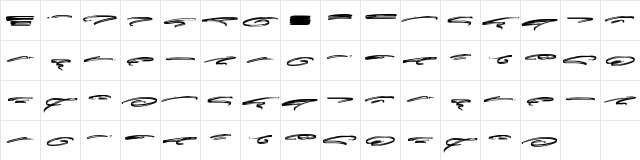
Greatest Richmond Swash Regular
| Designer | Muh. Aswar by Azetype Studio |
Design Context for Greatest Richmond Swash Typeface
Greatest Richmond Swash brings a calligraphic fluidity to the page — its connecting strokes and expressive curves give it an unmistakably human quality.
Font Pairing: Combine Greatest Richmond Swash with a simple geometric sans for maximum contrast — the tension between flowing curves and clean structure is a classic typographic pairing.
Pro Tip: Pair Greatest Richmond Swash with a clean sans-serif for supporting text. The contrast between fluid script and geometric structure creates an elegant typographic hierarchy.